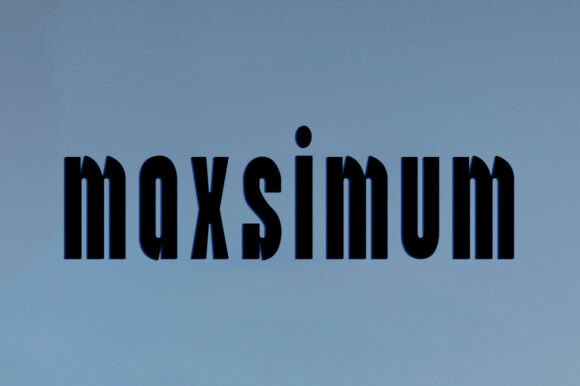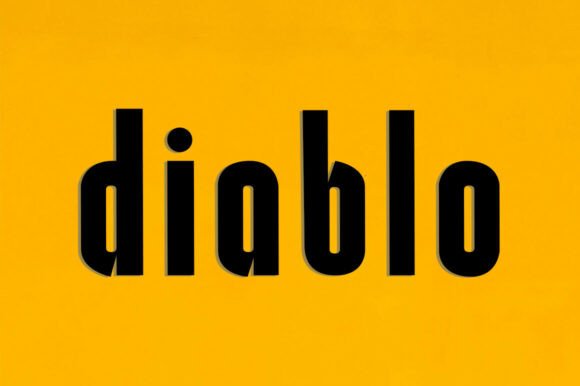
Introduction to Moodlight Font
MOODLIGHT is a modern sans serif font that exudes an elegant, light, and futuristic impression.
| ๐ค Author | Hendrik studio |
With clean lines, balanced proportions, and minimalist letter forms, this font is designed to convey a professional yet artistic ambiance Each character feels smooth and โbreathable,โ creating a comfortable-to-read appearance while maintaining character.
Key Features of Moodlight Font